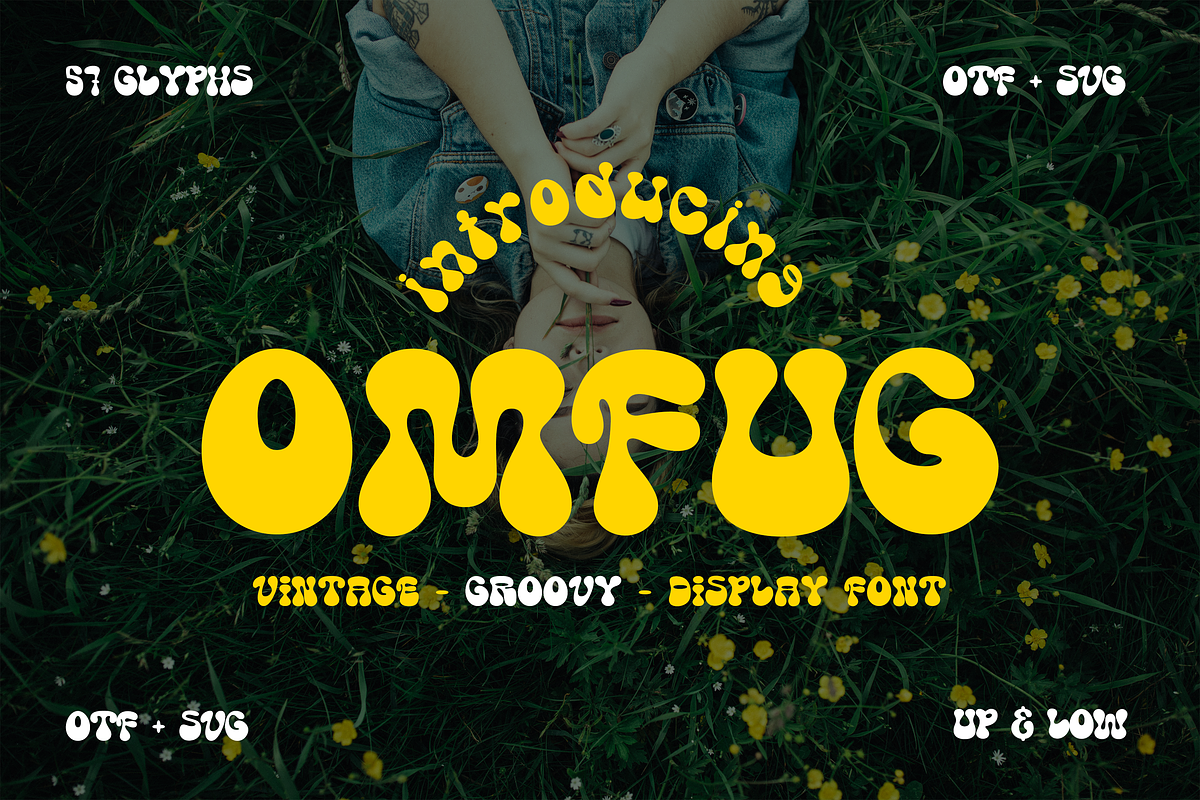
Omfug Retro Font – A Vintage Display Free Download is a bold and dynamic display typeface that brings a classic retro flair to your designs. Perfect for vintage-inspired branding, posters, logos, album covers, and signage, this font exudes nostalgia with its strong letterforms and playful, throwback style.
Omfug Retro captures the essence of mid-century modern design, with clean lines and distinctive curves that make it stand out in both large-scale designs and intricate details. Whether you're designing for a retro-themed event, a vintage clothing brand, or a music festival, this font will give your work the perfect nostalgic touch.
The font includes uppercase letters, numerals, punctuation, and multilingual support, making it a versatile choice for both print and digital media.